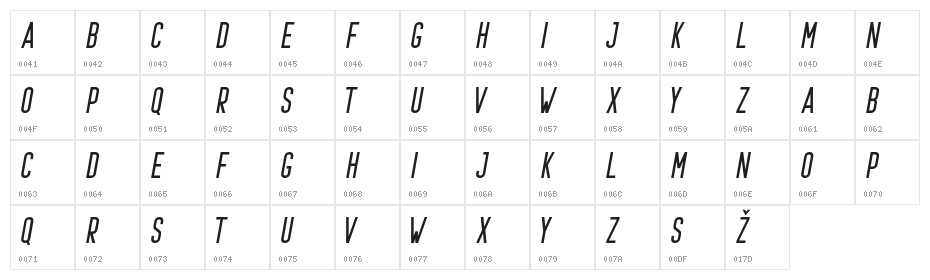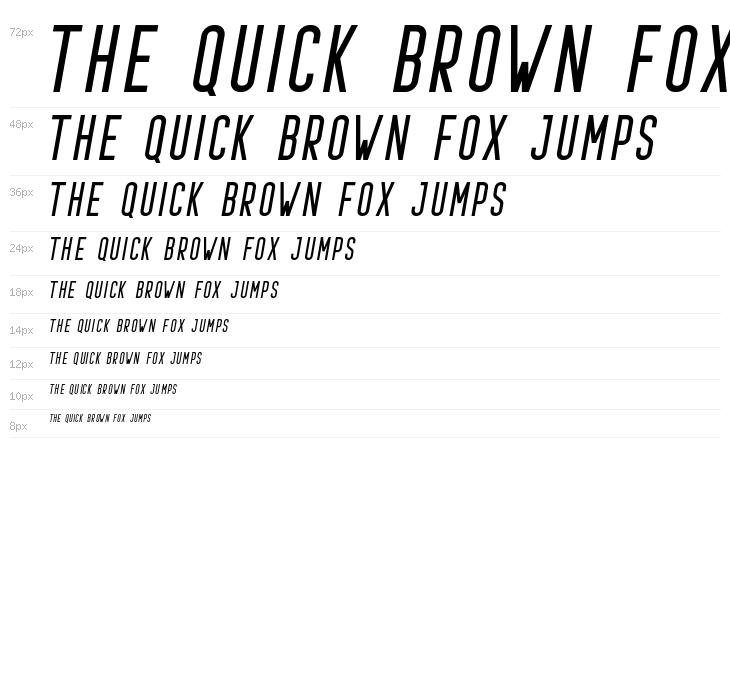
Prestage Italic Italic Font
Prestage Italic Italic Description
This font features a sleek and modern italic style with elongated and slightly condensed letterforms. The characters are designed with a consistent slant, giving a dynamic and forward-moving appearance. The strokes are uniform in thickness, providing a clean and streamlined look. The uppercase and lowercase letters maintain a cohesive style, with the lowercase letters mirroring the elegance of the uppercase. This font is well-suited for projects that require a contemporary and stylish touch, offering both readability and visual appeal.
| Proposed Projects | Ideal for branding, advertising, and editorial design where a modern and stylish look is desired. |